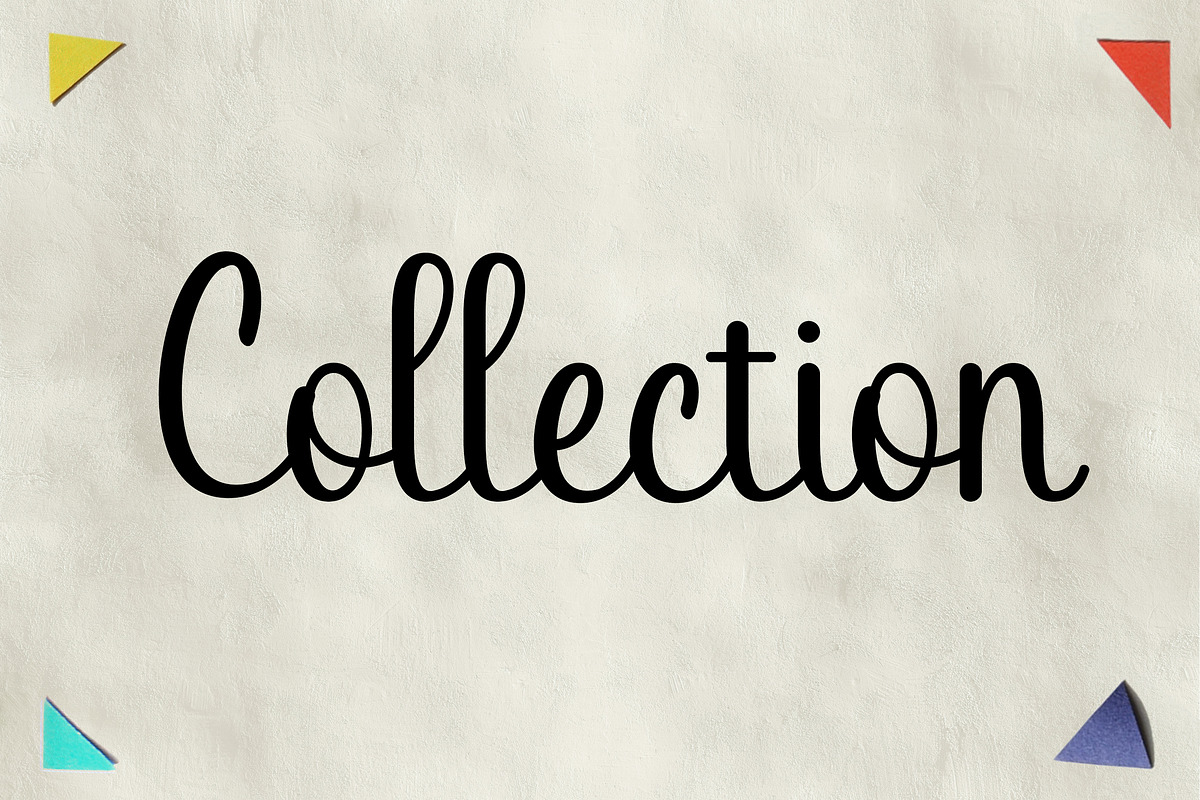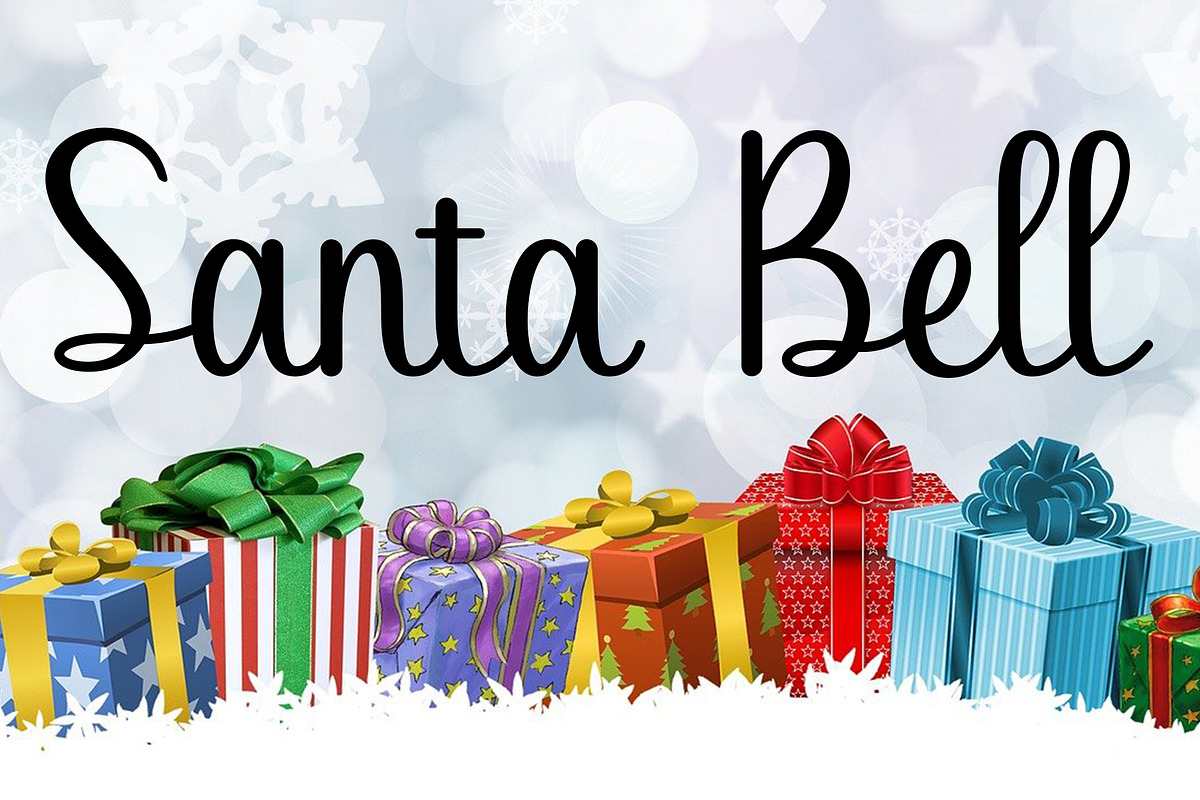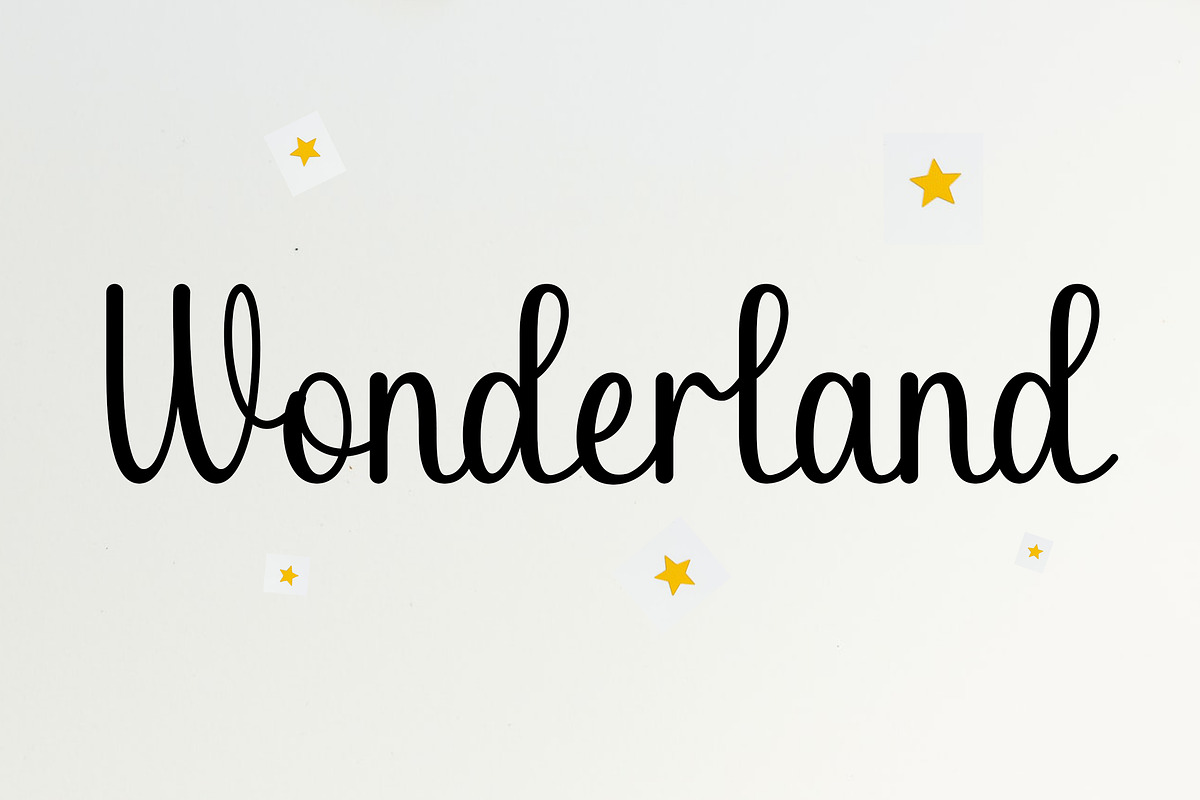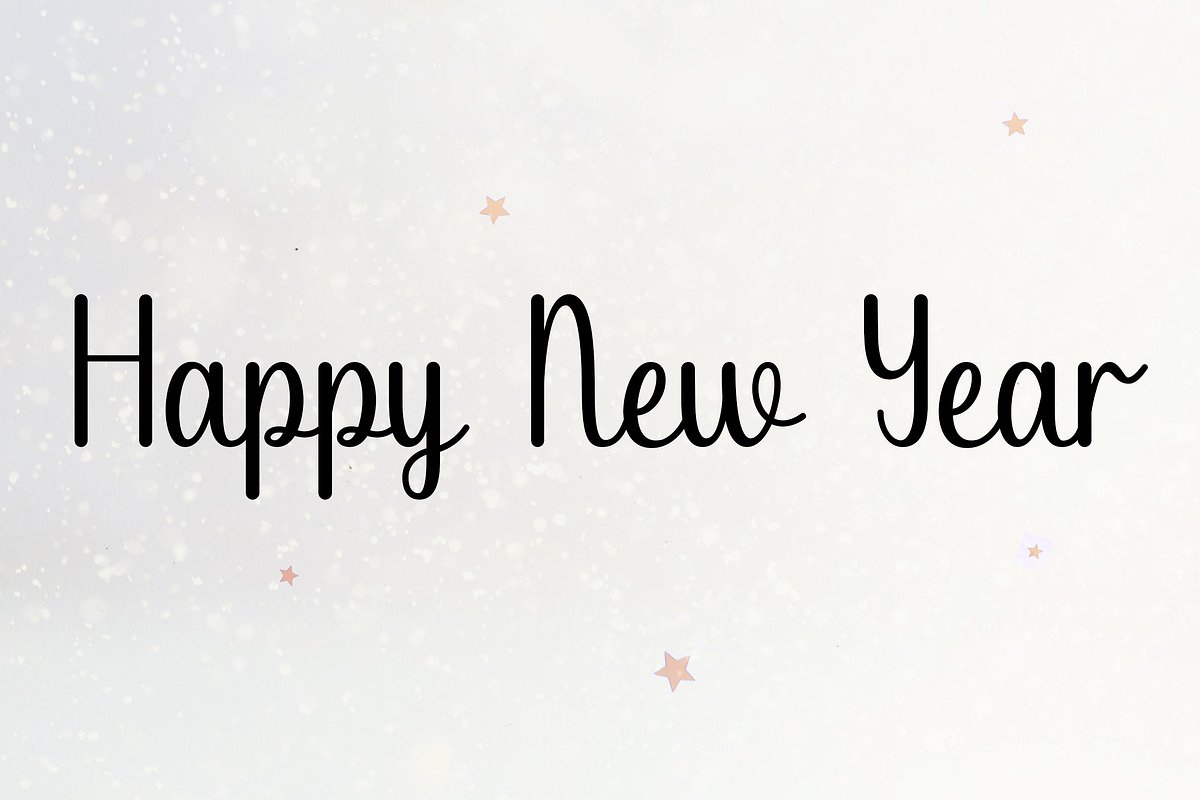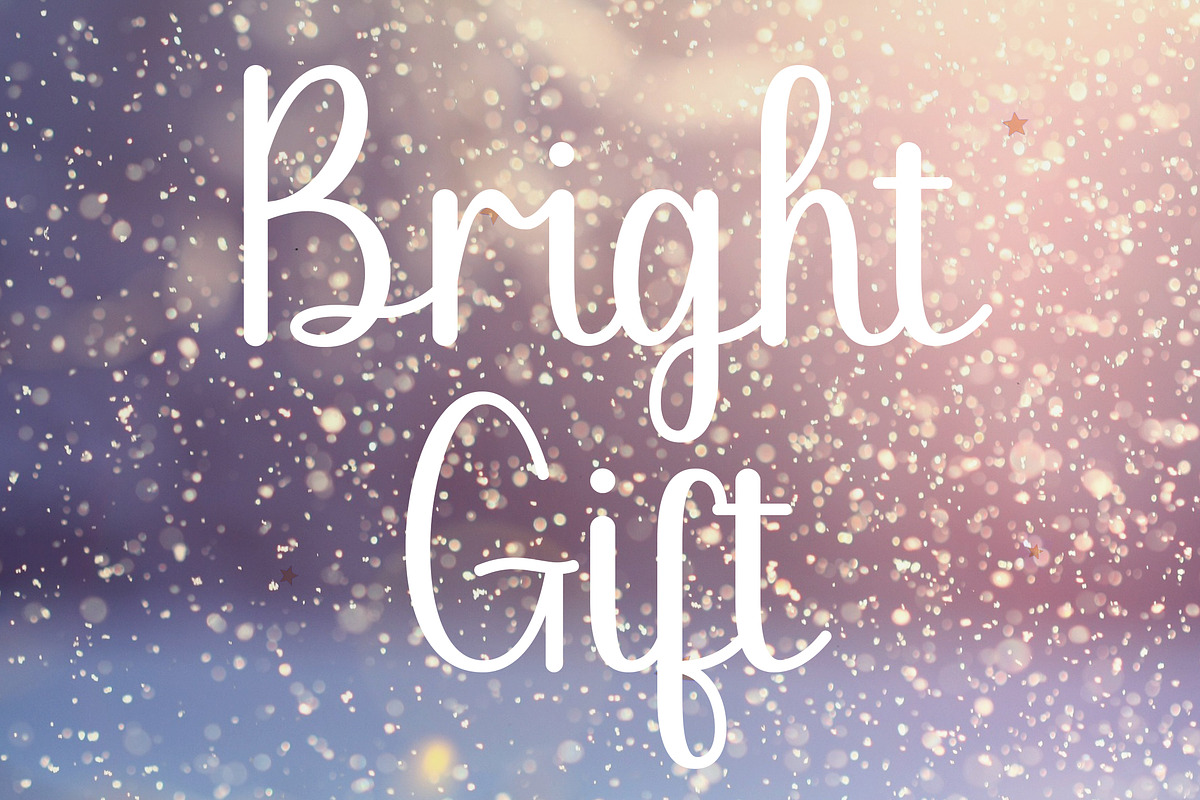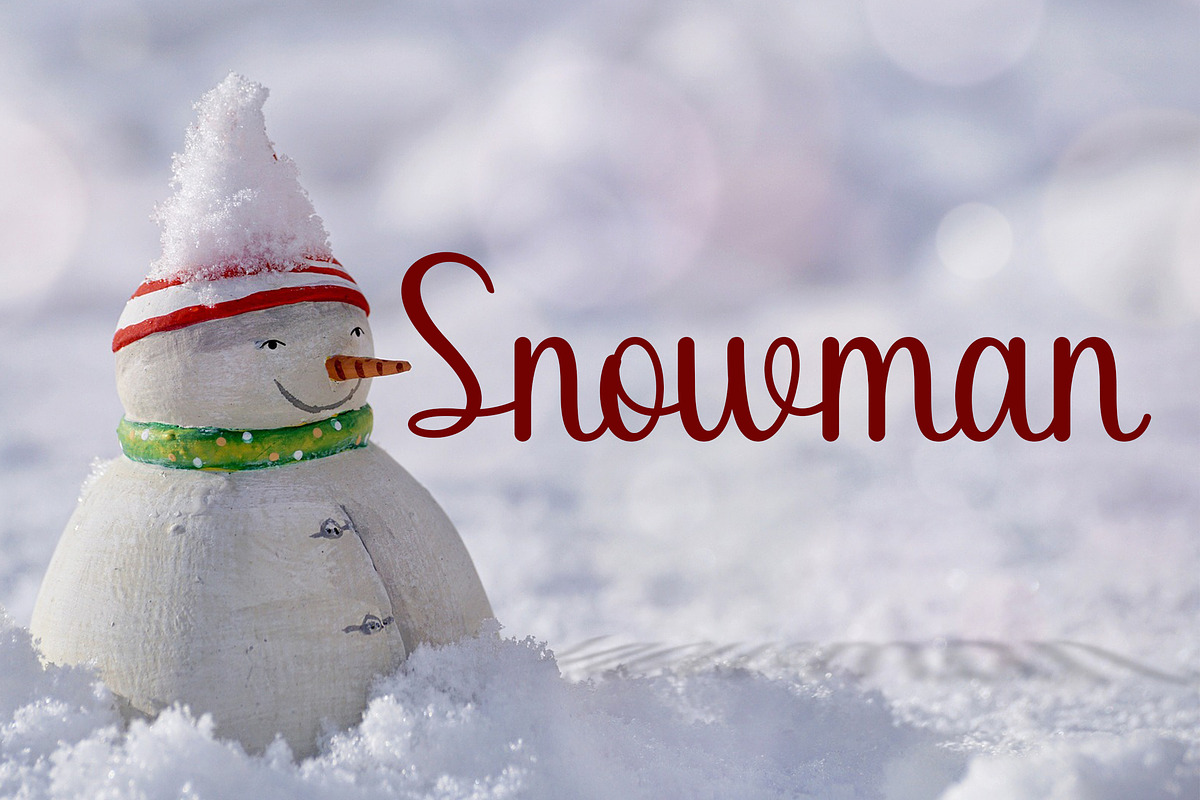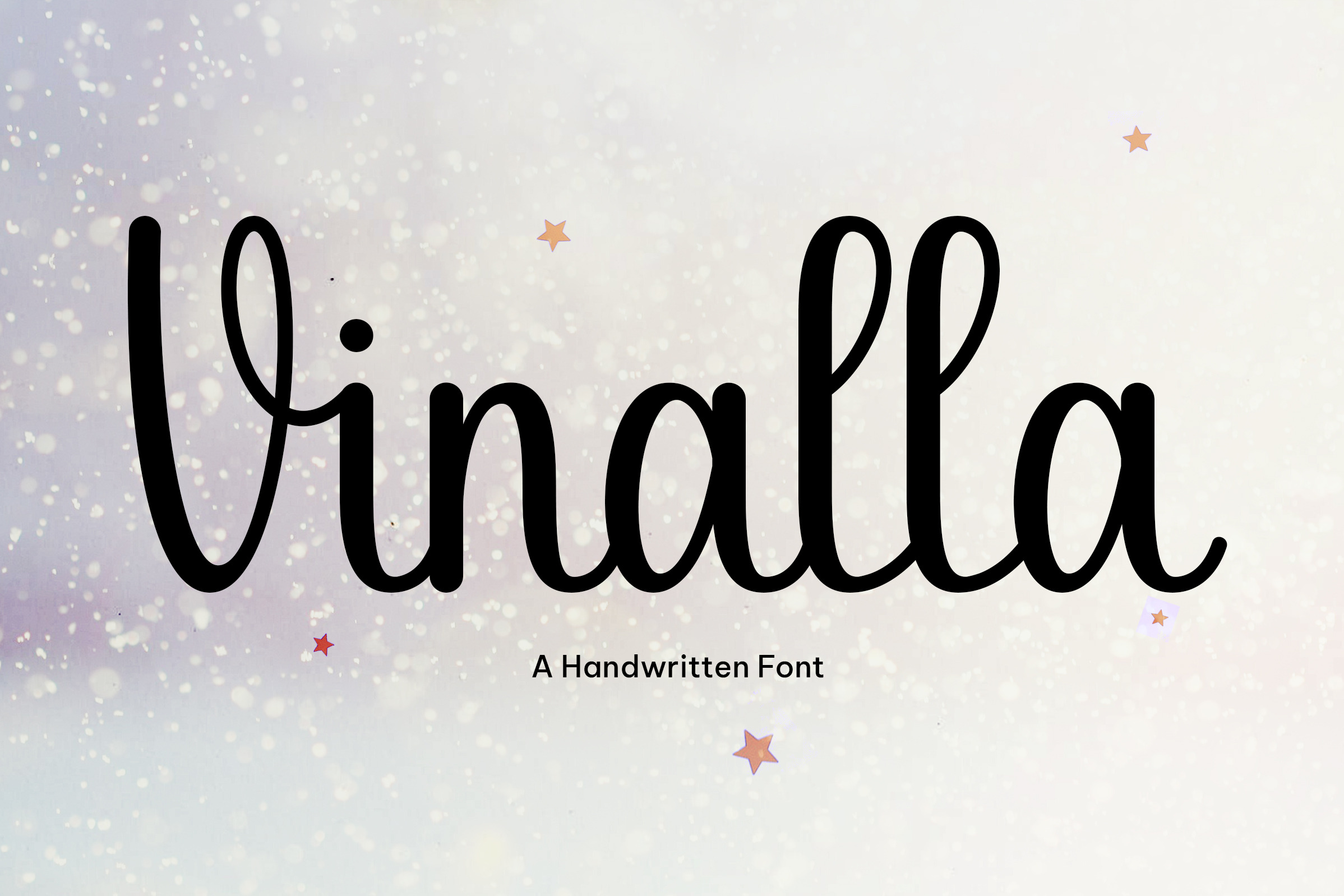
Vinalla - Handwritten script font
Vinalla is a handwritten script font. This font has a lovely touch of character, perfect for a wide variety of designs. Fall in love with its incredibly versatile style and use it to create spectacular designs. Add to your most creative ideas and create stunning designs with it! (please type the preview to see if I have what you need)